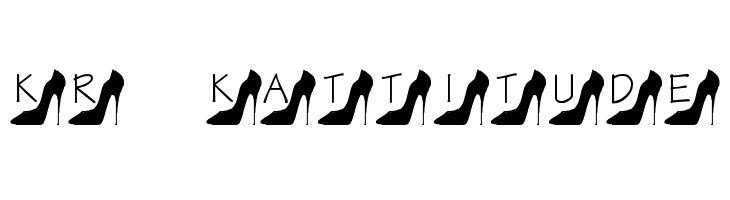
A decorative font featuring high-heeled shoe silhouettes integrated into each letter.
A decorative font where each letter is integrated with a high-heeled shoe silhouette.